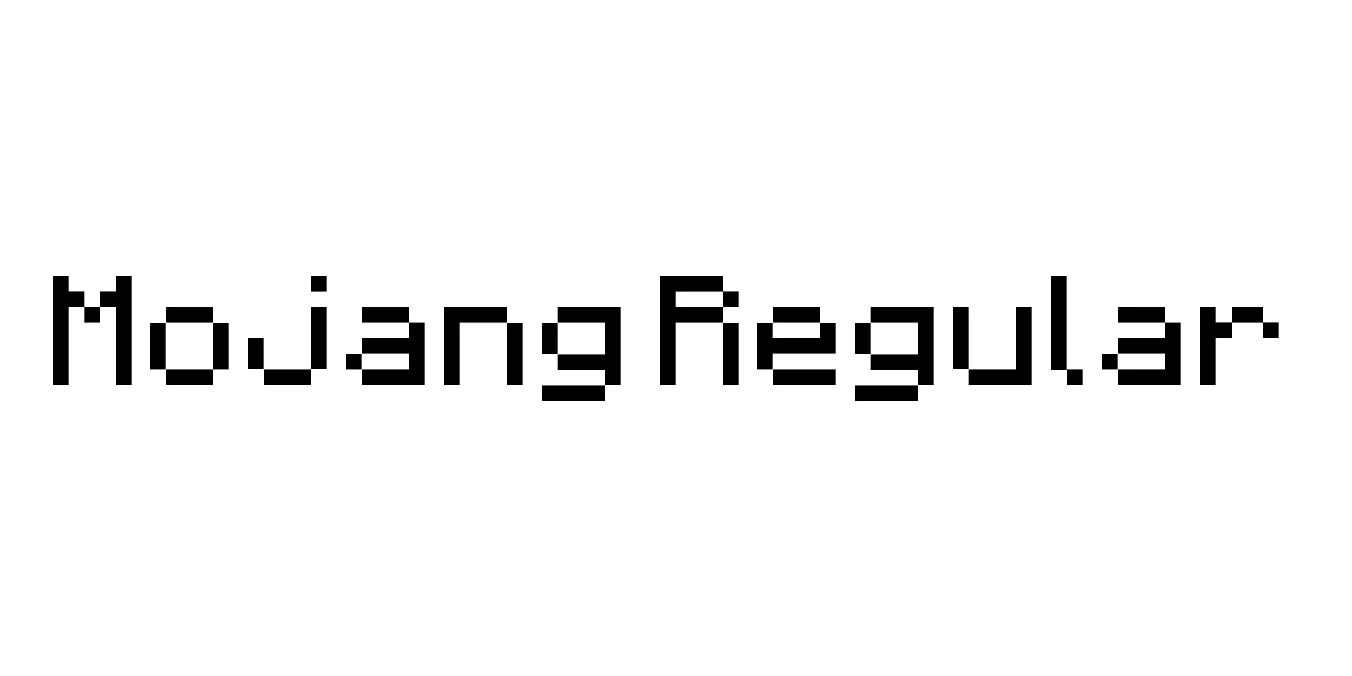
Mojang Regular
Designed by Mojang AB
| Category | Pixel / Bitmap |
| Designer | Mojang AB |
Mojang Regular is the quintessential pixel-based typeface synonymous with the global phenomenon Minecraft. Developed internally by the Mojang team, the font was meticulously crafted to align with the game's blocky, grid-based aesthetic. Its primary purpose was to provide clear legibility within the low-resolution user interfaces, menus, and chat boxes that players interact with daily.
Beyond its functional roots in game development, the font has become a massive cultural icon in the 8-bit and retro design communities. While the specific proprietary version belongs to Mojang, its style has inspired countless variations used in fan-made content, digital art, and gaming-themed branding. It remains one of the most recognizable digital fonts in the world, embodying the spirit of creativity and retro-modern gaming.
Mojang Regular Best Uses
Perfect for UI elements, HUDs, and dialogue systems in voxel or pixel-art games.
Excellent for YouTube thumbnails, social media headers, and posters for the gaming community.
Great for stylized headings on gaming blogs, forums, or fan sites.
Works well for t-shirt graphics and merchandise that require a nostalgic digital feel.